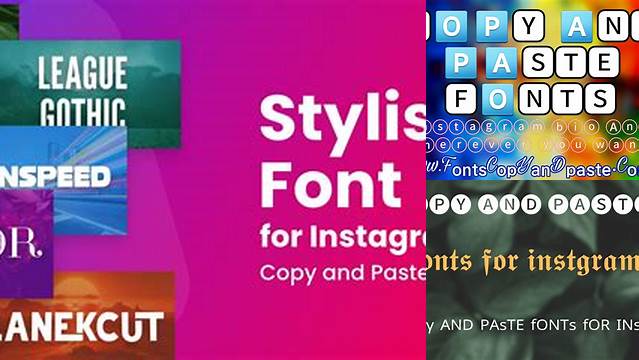
Stylish Fonts For IPhone: Copy & Paste Magic!
Hey guys! Ever wanted to spice up your iPhone text game? You know, make your Instagram captions pop, your texts stand out, or your bios a little more you? Well, look no further! We're diving headfirst into the awesome world of cool fonts for iPhone copy and paste. Forget boring, standard fonts; we're talking about turning your words into works of art with a simple copy-paste! Let's get started, shall we? This guide is your ultimate ticket to fontastic fun, making your iPhone a canvas for creative expression. Get ready to transform your digital presence, one stylish character at a time. We'll explore everything from where to find these amazing fonts to how to use them effectively, ensuring your messages are as unique as you are. Let's go!
1. Finding Your Font: The Best iPhone Font Generators
First things first, where do you even find these magical fonts, right? Well, you don't need to be a tech guru to get started. The good news is that several user-friendly iPhone font generators are available, ready to turn your plain text into something spectacular. These generators are typically web-based and incredibly easy to use. You type in your text, and voila! You'll see your words transformed into a variety of stylish fonts instantly. The process is generally the same across different websites: enter your text, browse the font options, and then copy and paste your desired font. Many generators also offer a preview of how your chosen font will look on different platforms like Instagram, Facebook, or Twitter. This helps you ensure your text is visually appealing and compatible with your chosen social media or messaging app. Experimenting with different generators can also unlock a wider range of font styles. Some websites specialize in quirky fonts, others in elegant script, and some offer a mix of everything. Remember that the availability of certain fonts might depend on the app or platform you intend to use them on. A font that appears perfectly on your generator may not render exactly the same way on Instagram, so it is essential to test before posting. Always check the terms of service for any site you use to avoid copyright issues. Also, be mindful of font legibility, choosing styles that are cool but still readable. Consider using font generators that offer a variety of character sets; some can generate a wider range of symbols and characters that add extra flair. Ready to find your perfect font? Let's dive in and explore some of the best font generators out there!
1.1. Top-Rated Font Generators for iPhone Users
Alright, let’s get down to brass tacks and explore some of the top-rated font generators that iPhone users love! These websites are popular because they are intuitive, have a good selection of fonts, and offer a seamless copy-paste experience. One of the most popular options is called Fontsy (example name), known for its extensive font library that includes everything from classic to modern styles. Its interface is clean and easy to navigate, allowing you to instantly see how your text will appear in each font. Another excellent choice is Lingojam's fancy text generator (example name), famous for its large selection of creative and unique fonts. Lingojam often updates its fonts, providing fresh options that remain stylish and trendy. Both of these sites provide a simple text box where you enter your words, and then generate a list of fonts you can immediately copy and use. You can also save the text and share them with your friends. Many users appreciate the fact that these generators are web-based, meaning you don't need to download an app or deal with clutter on your iPhone. Also, these font generators have mobile-friendly designs, enabling you to access and use them effortlessly on your phone. When choosing a font generator, look for sites with a good reputation and a wide variety of fonts. Some other sites also provide extra features like customizable font sizes or the ability to generate text using special characters. Always make sure the generator works well with the platforms you use to ensure your text renders correctly. The best generators offer a preview feature, so you can see exactly how your text will appear before you commit to copying it. These features will help you save time and ensure your message looks exactly the way you want.
1.2. Utilizing Font Generators for Social Media
Social media is all about standing out, right? Well, utilizing font generators for social media can be your secret weapon to make your content shine. Whether it's Instagram, Facebook, Twitter, or even TikTok, the ability to use unique fonts can significantly boost your engagement and make your posts more memorable. On Instagram, for instance, creative fonts can be used to create eye-catching captions, stylish bios, or even highlight stories. By using fonts that are different from the standard options, your profile will capture the attention of your followers. You can use a font generator to design engaging text and add them to your Instagram posts for maximum impact. On Facebook, you can create posts or profiles using unique fonts to showcase your personality. Consider creating custom fonts for your Facebook posts to grab the attention of your friends or followers. The fonts can be used in your status updates, comments, and even to create unique group names. With Twitter, you can make tweets with fonts to make them more visually appealing, helping them stand out in the fast-paced stream of information. The same goes for TikTok, where your video captions and profile details can benefit from a unique font style. However, remember that not all fonts are supported by every platform, so preview your text on the platform before you post. Also, keep in mind that font visibility can vary depending on the user's device or browser, so choosing legible and universally compatible fonts is best. Furthermore, using font generators is a straightforward way to create a consistent brand identity across all your social media channels, making your content instantly recognizable.
2. Copy and Paste: The Easy Font Application Process
Alright, so you've found the perfect font using your favorite generator. Now comes the easy part: copy and paste. This simple process is the magic key to applying your new font to your iPhone text, bio, or caption. It's incredibly straightforward and doesn't require any technical skills. You will first generate the text in your desired font in the font generator, then select the text and copy it. This can be done by long-pressing on the text and choosing